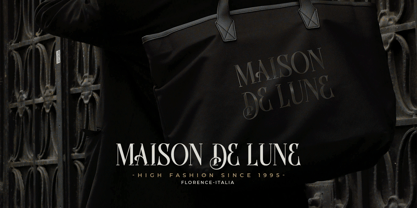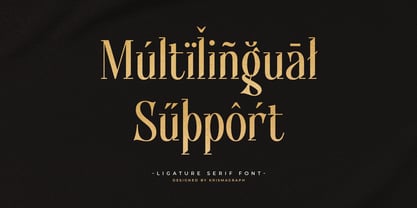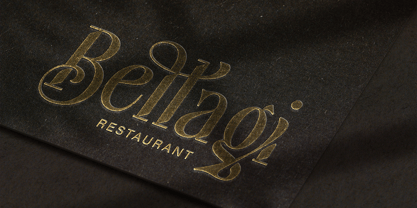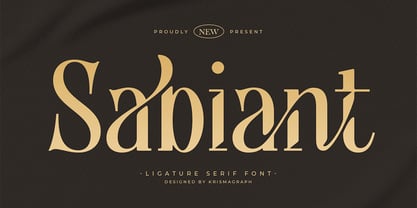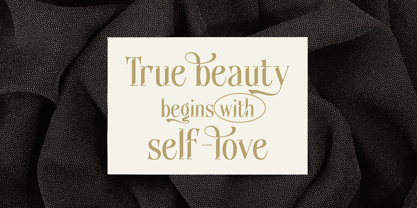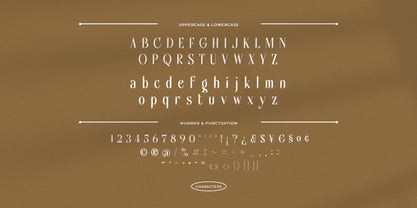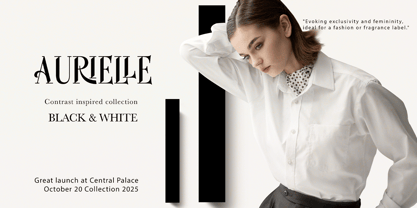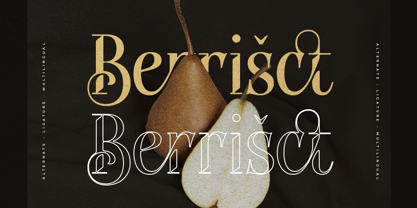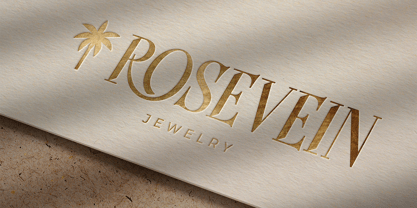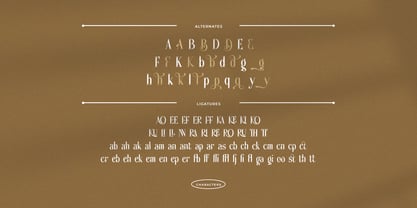
Sabiant
Introducing Sabiant, a luxury ligature serif font crafted to radiate timeless elegance and high-end sophistication. Designed with graceful curves, sharp serifs, and exquisite ligature details, Sabiant embodies the perfect fusion of classic typography and modern aesthetics.
Sabiant is an ideal choice for branding projects, editorial design, luxury packaging, wedding stationery, and premium logo design. Every letterform is meticulously designed to convey elegance, refinement, and a distinct fashion-forward personality. The beautifully integrated ligatures and stylish alternates make Sabiant a standout tool for creating iconic visuals and upscale layouts.
Whether you’re designing for a luxury fashion label, a boutique brand, or an editorial spread, Sabiant will elevate your message with its refined charm and contemporary edge.
Features:
- Uppercase & lowercase serif font
- Stunning ligatures & stylistic alternates
- High contrast strokes and elegant proportions
- Multilingual support
- Perfect for high-end branding and editorial use